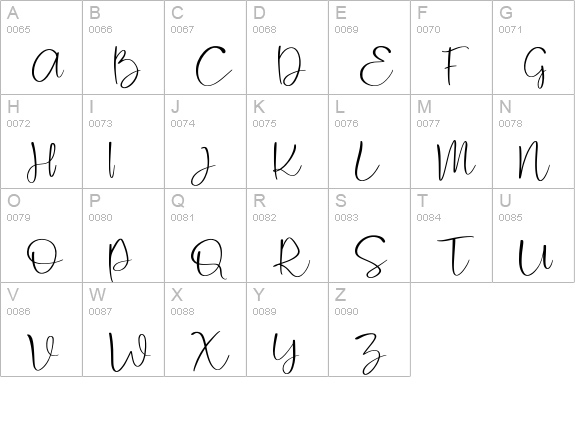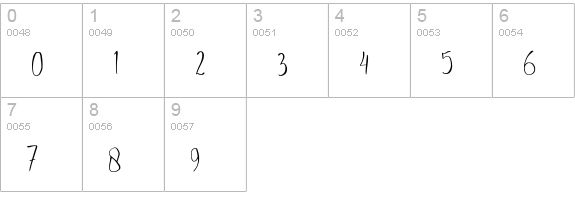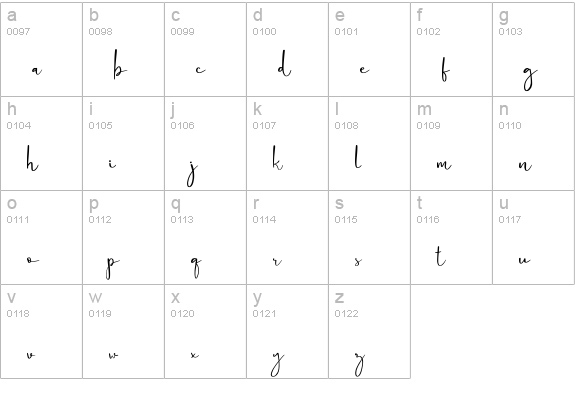
Cattus is a demo font in the Fancy > Curly category, designed by craftsupplyco. It has been downloaded 24 times and is available for Windows, Mac and Linux.
Cattus font is a sleek and modern typeface that exudes elegance and sophistication. With its clean lines and stylish curves, this font is perfect for adding a touch of class to any project. The versatility of Cattus font makes it suitable for a wide range of design applications, from logos and branding to headlines and marketing materials.